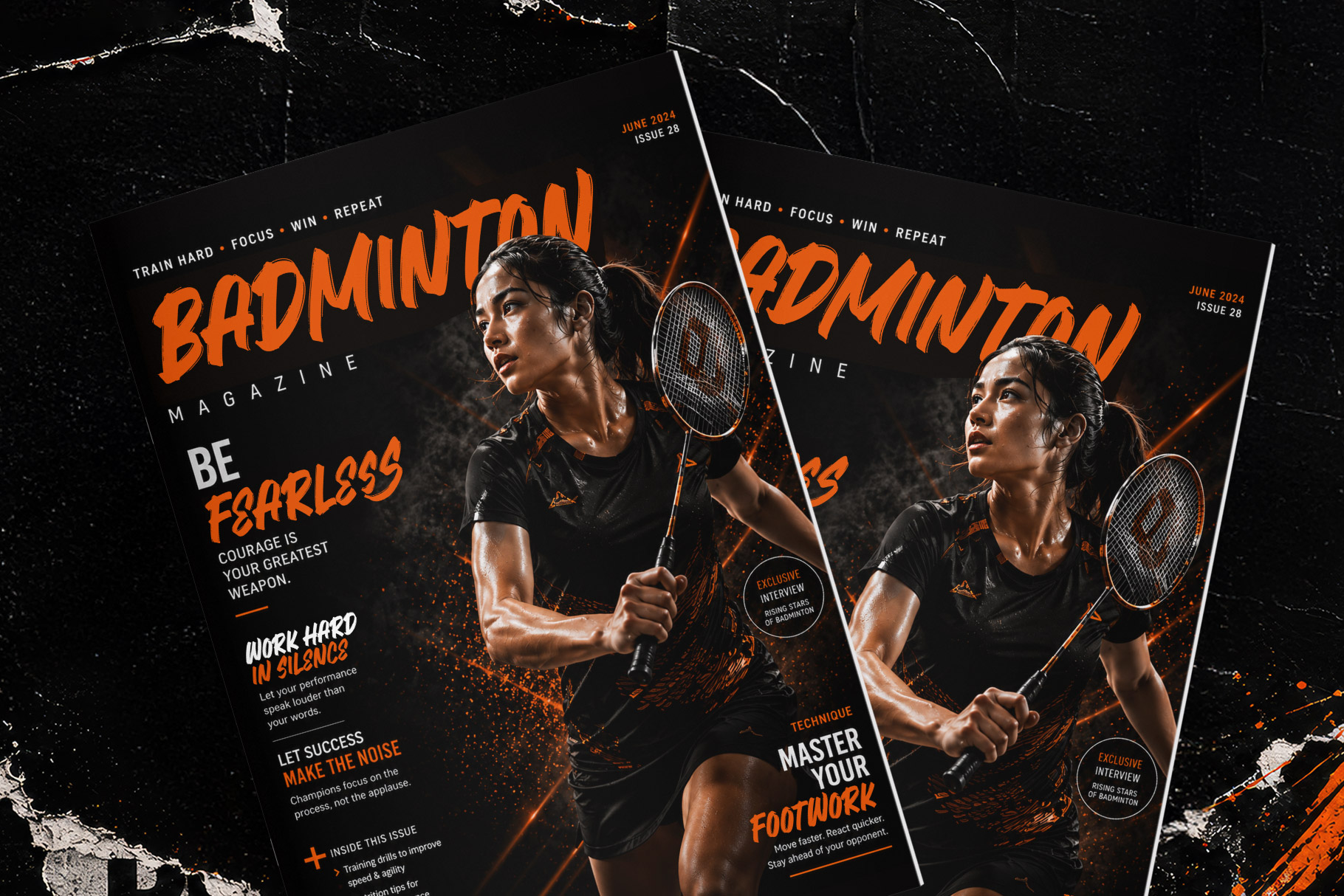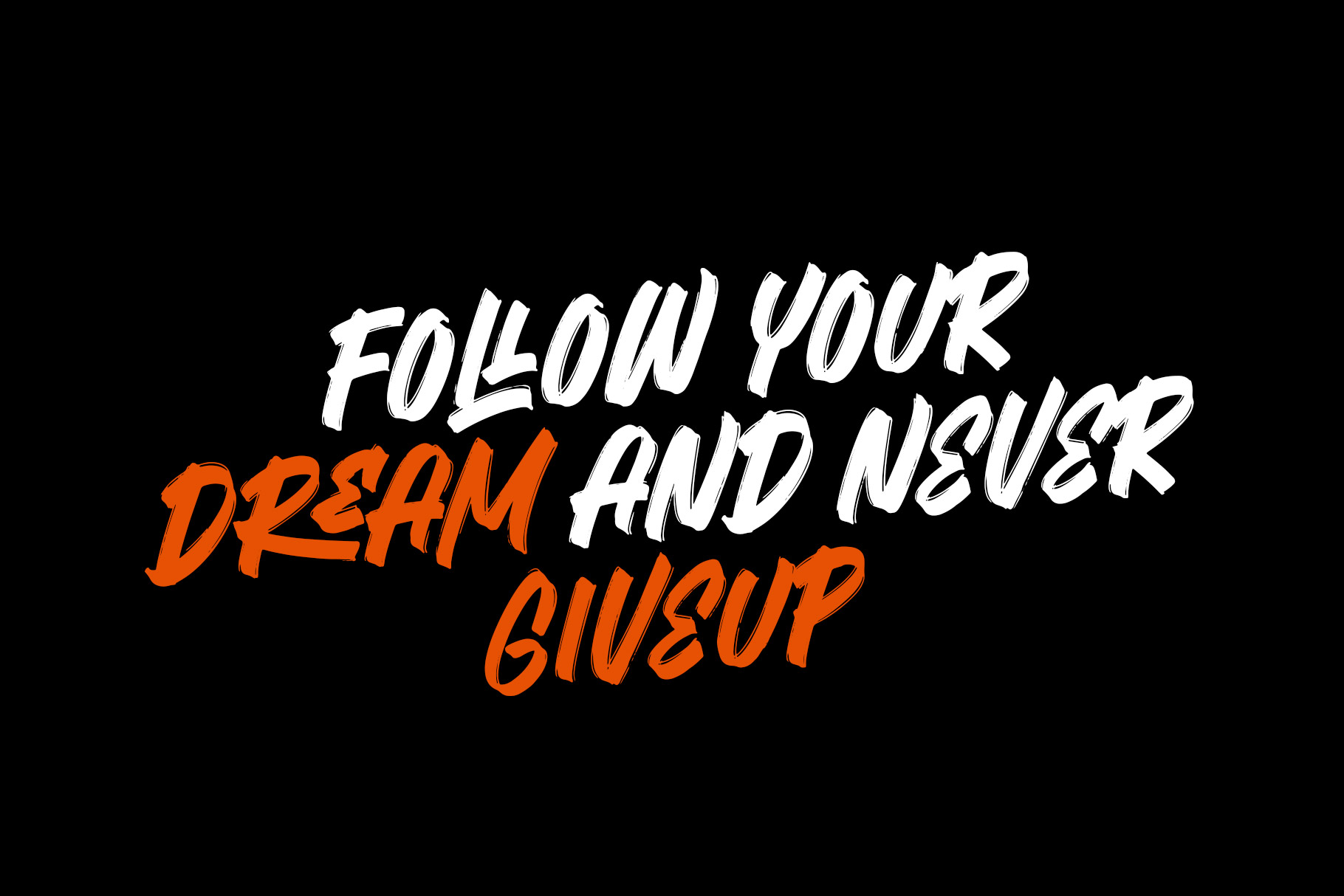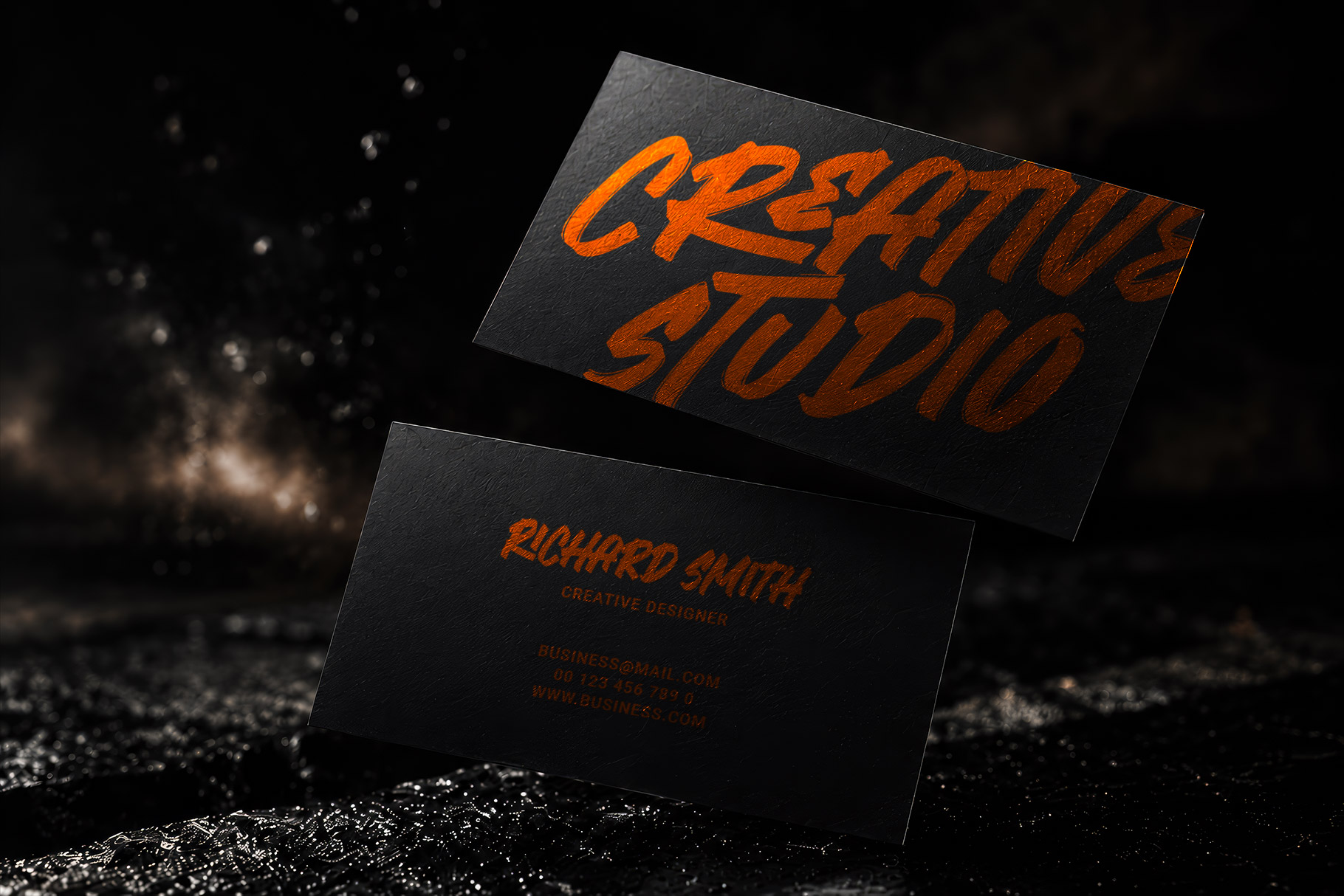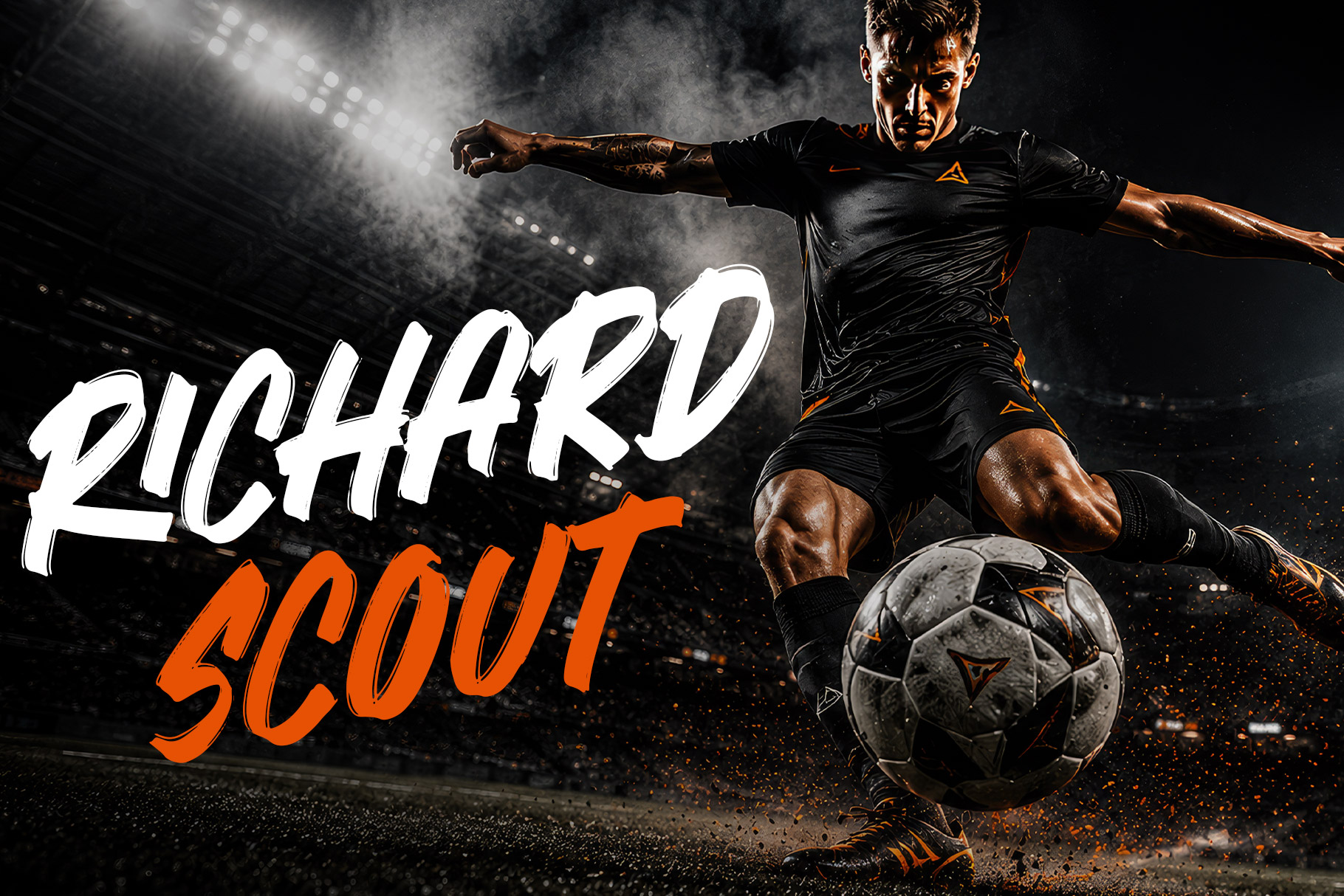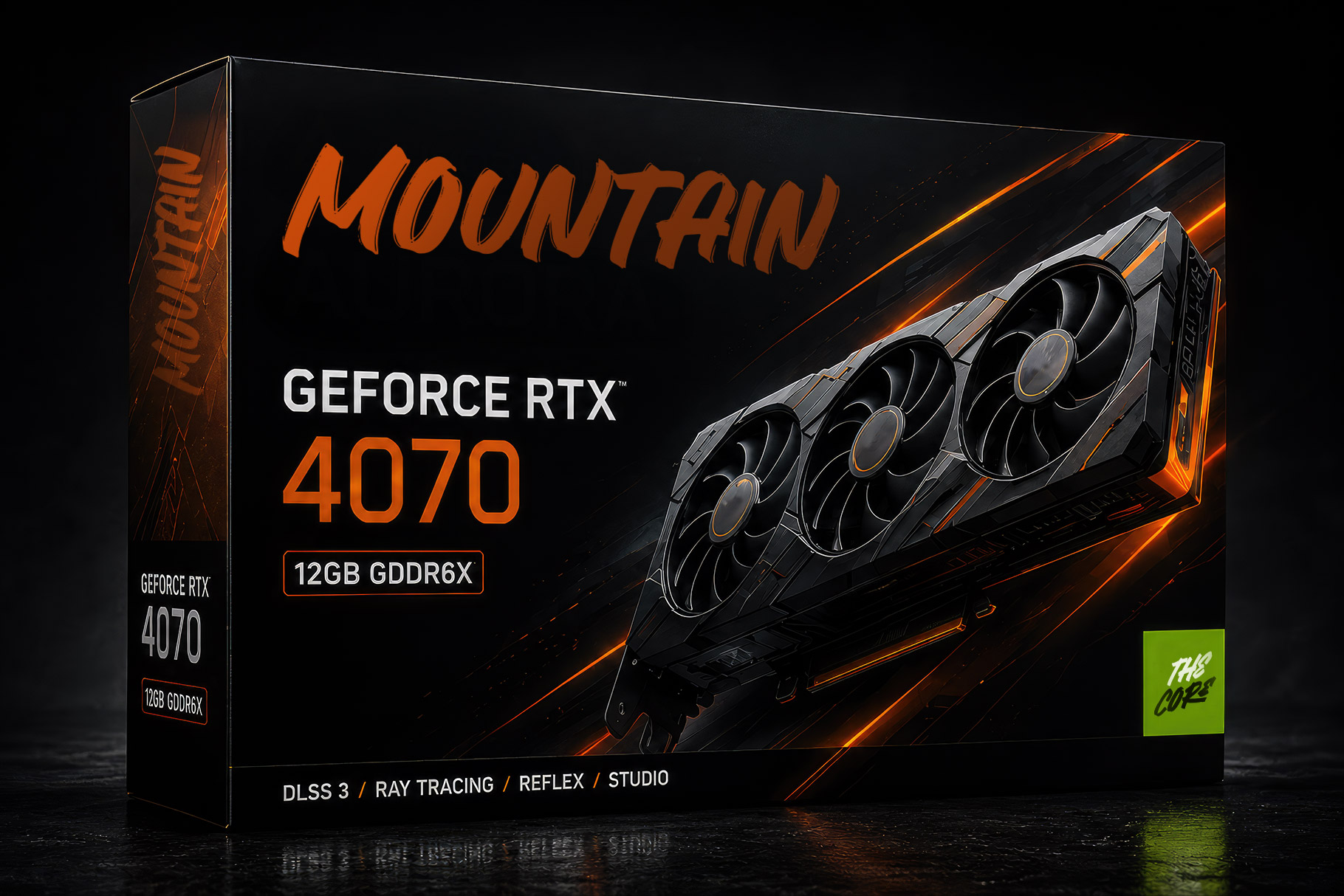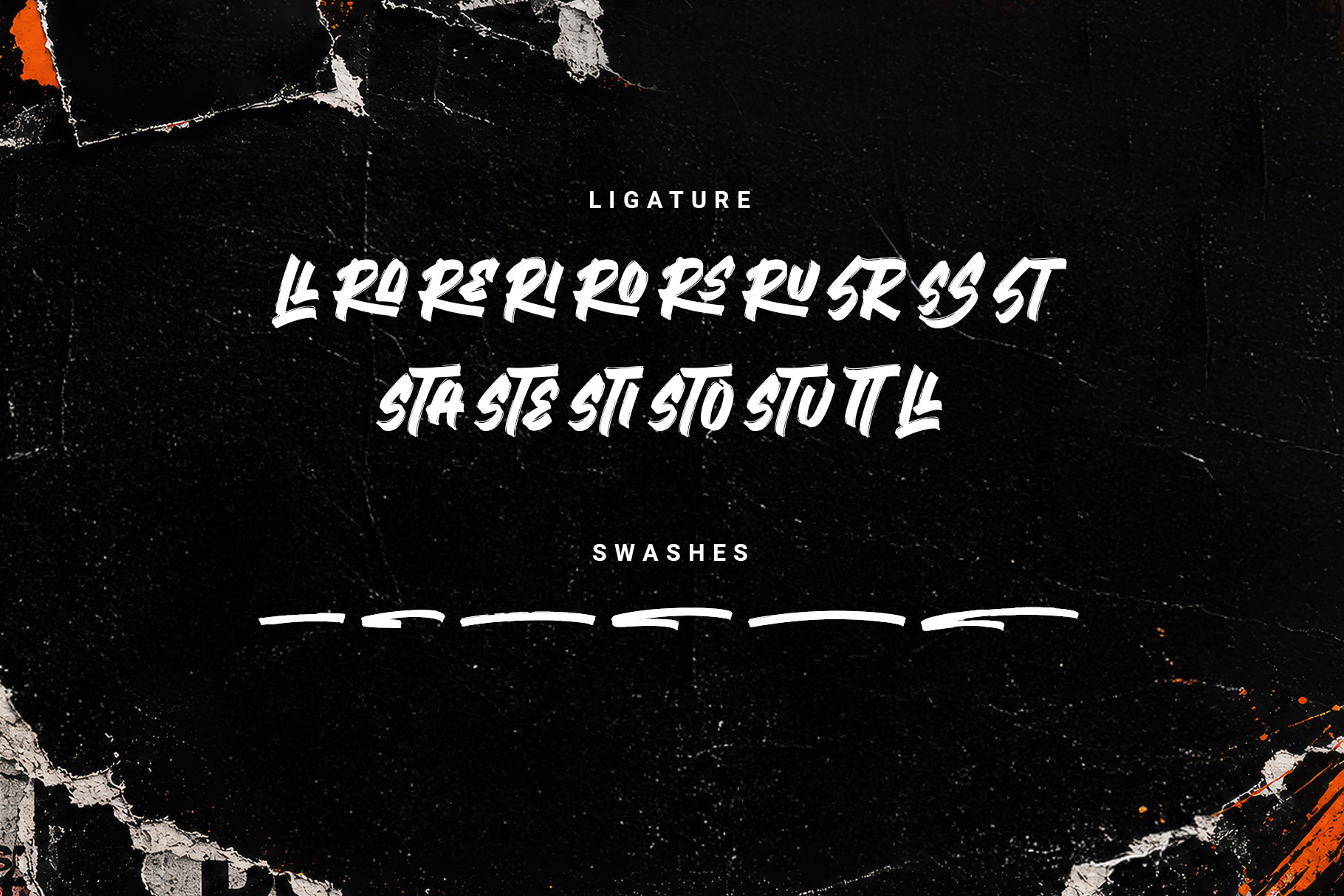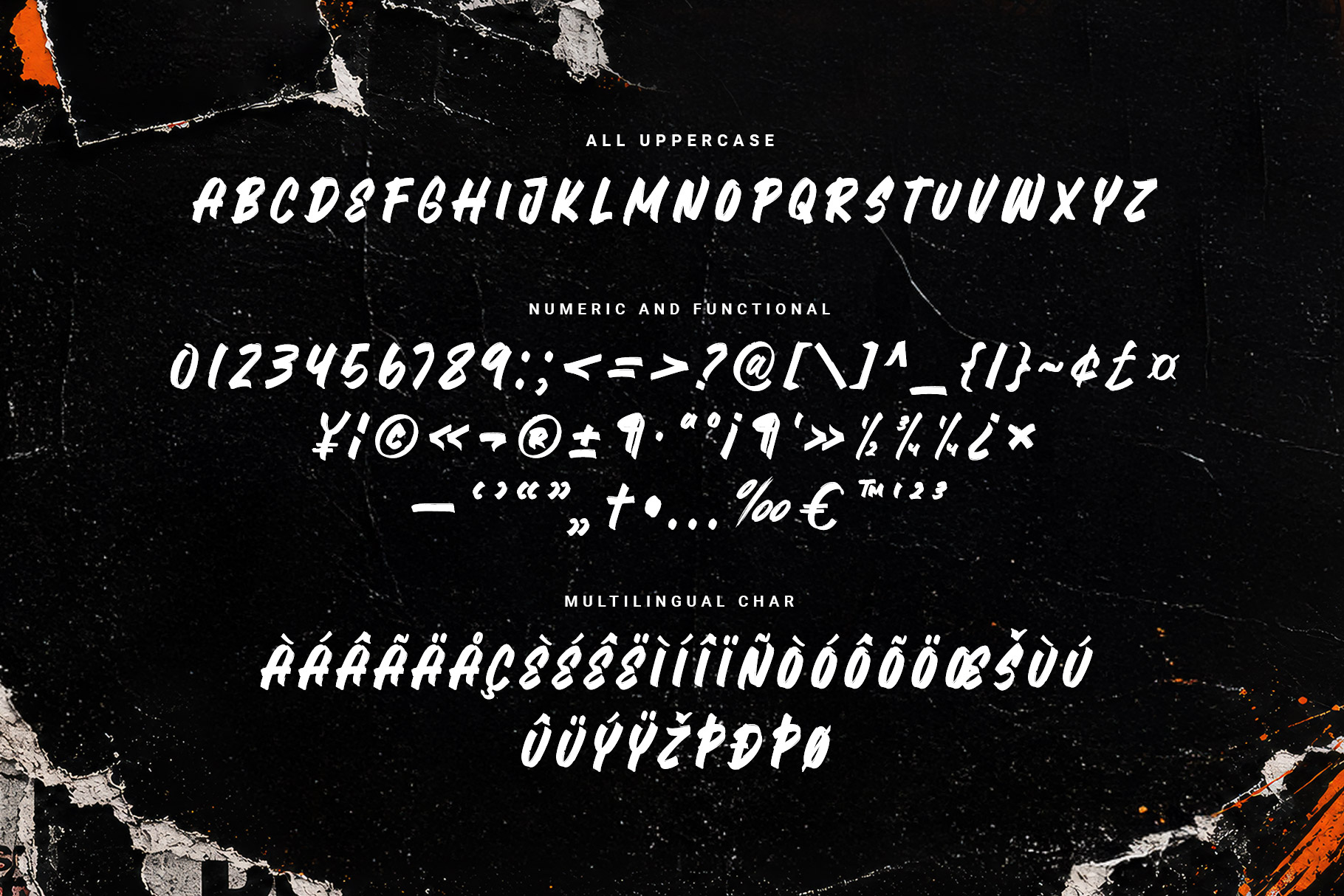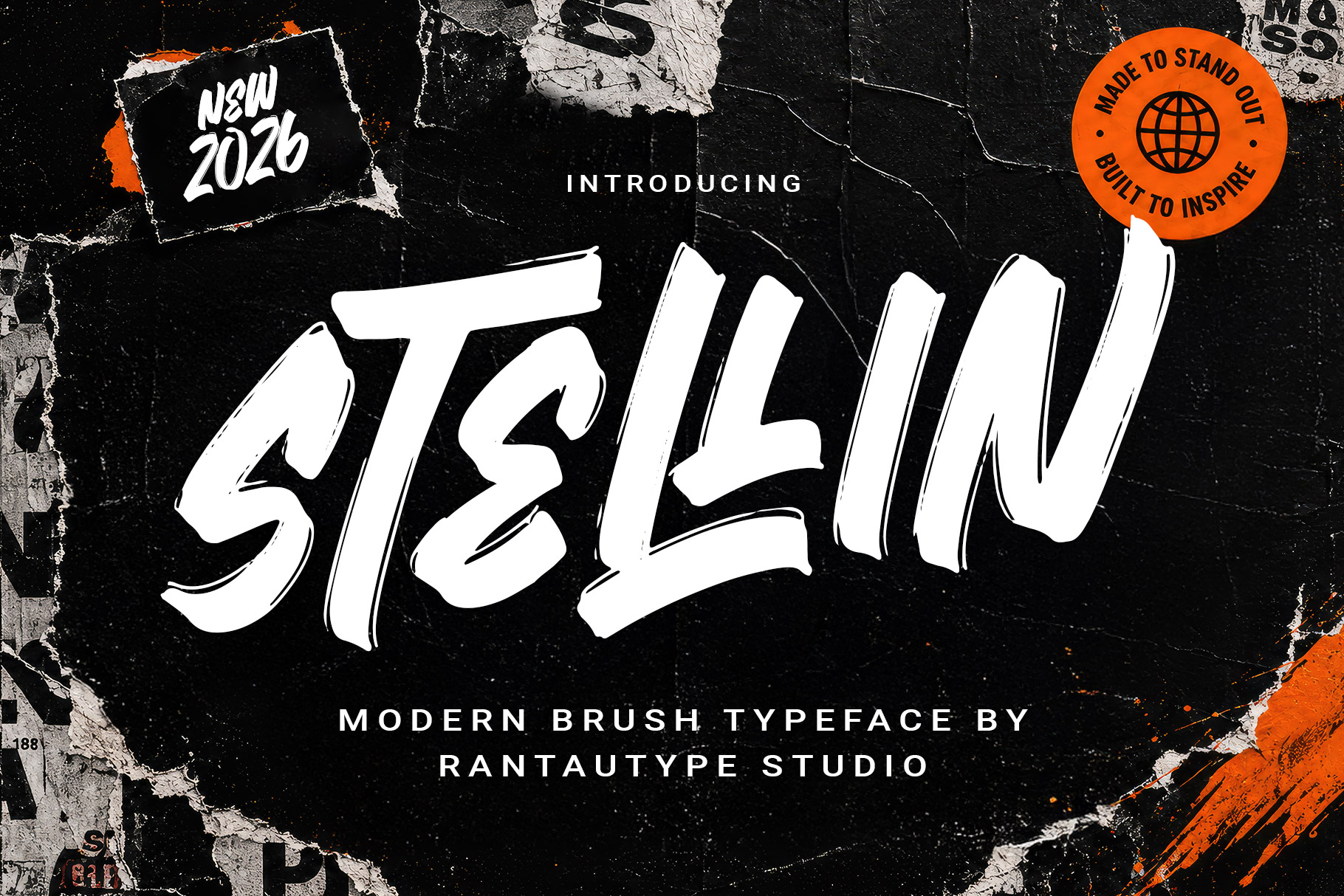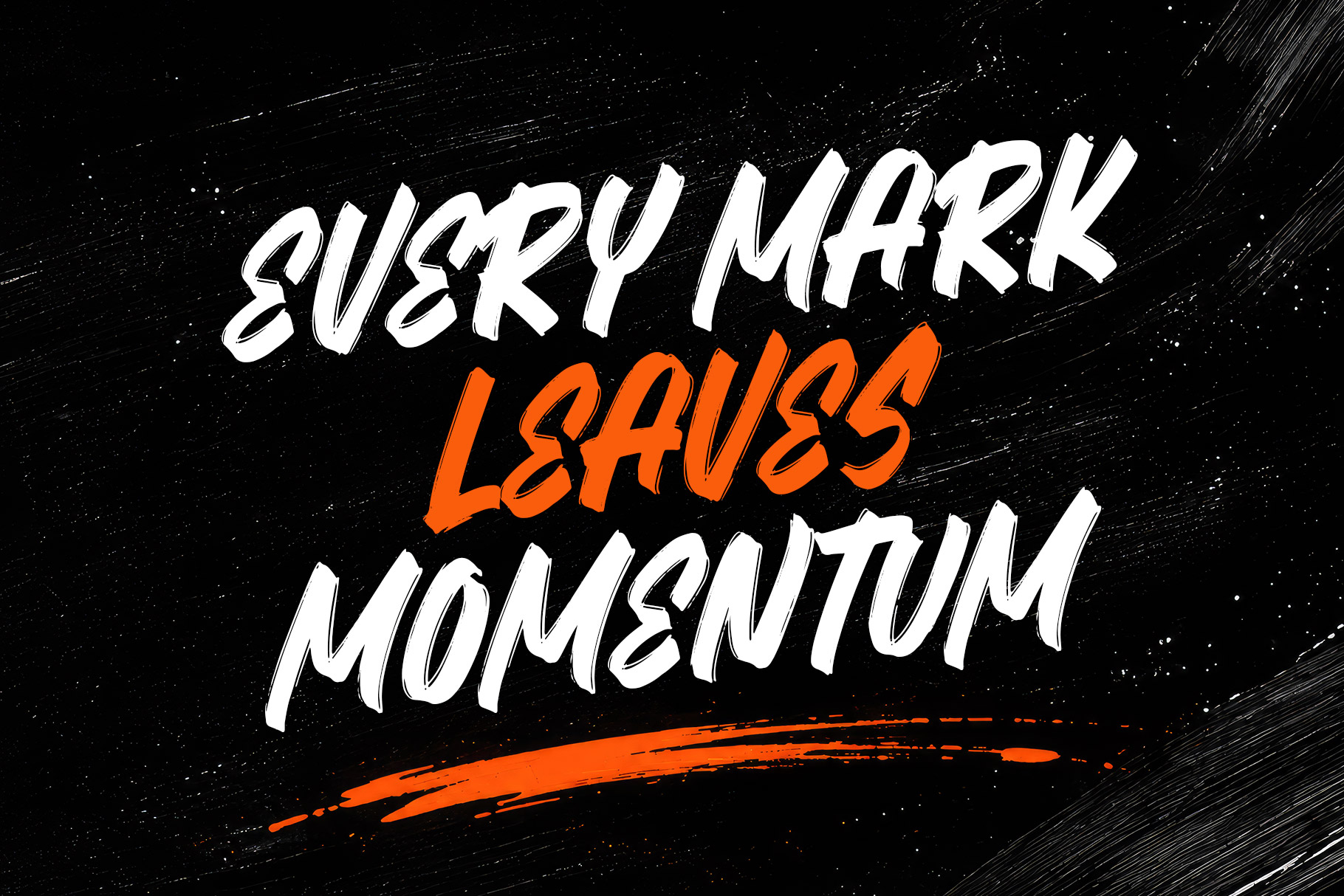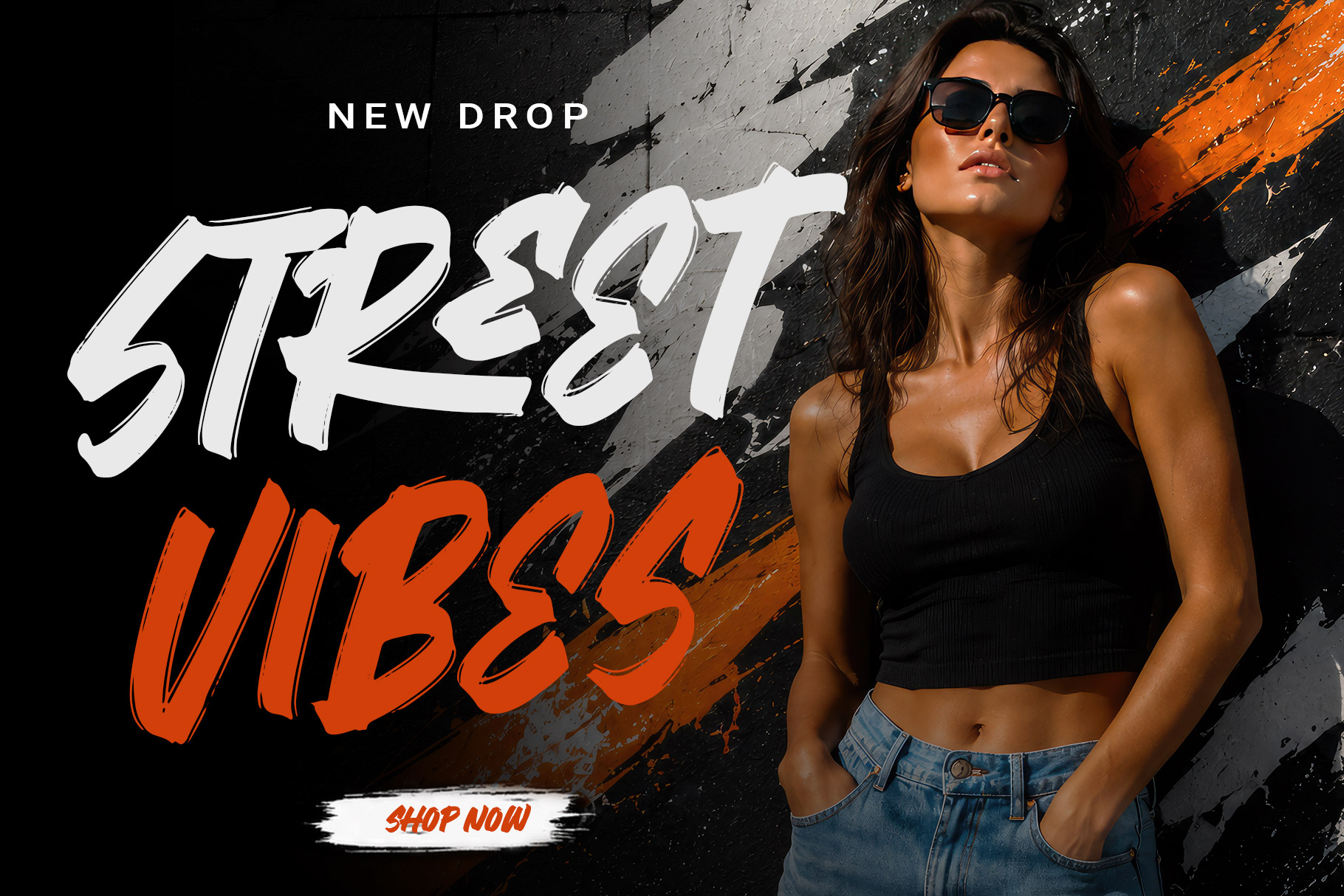
Stellin is modern brush font delivers a bold, energetic, and highly expressive visual identity that instantly captures attention. Crafted with dynamic hand-painted strokes, the lettering showcases the raw authenticity of traditional brushwork while maintaining a contemporary and polished appearance.
Stellin is a perfectly choice for any creative endeavor, creating, modern, lifestyle design such as logotype, title, cover, branding, display and magazine, social media posts, advertisements, printed quotes, product packaging, corporate brand, product designs, labels, photography, watermarks, special events and any other project with urban touch.